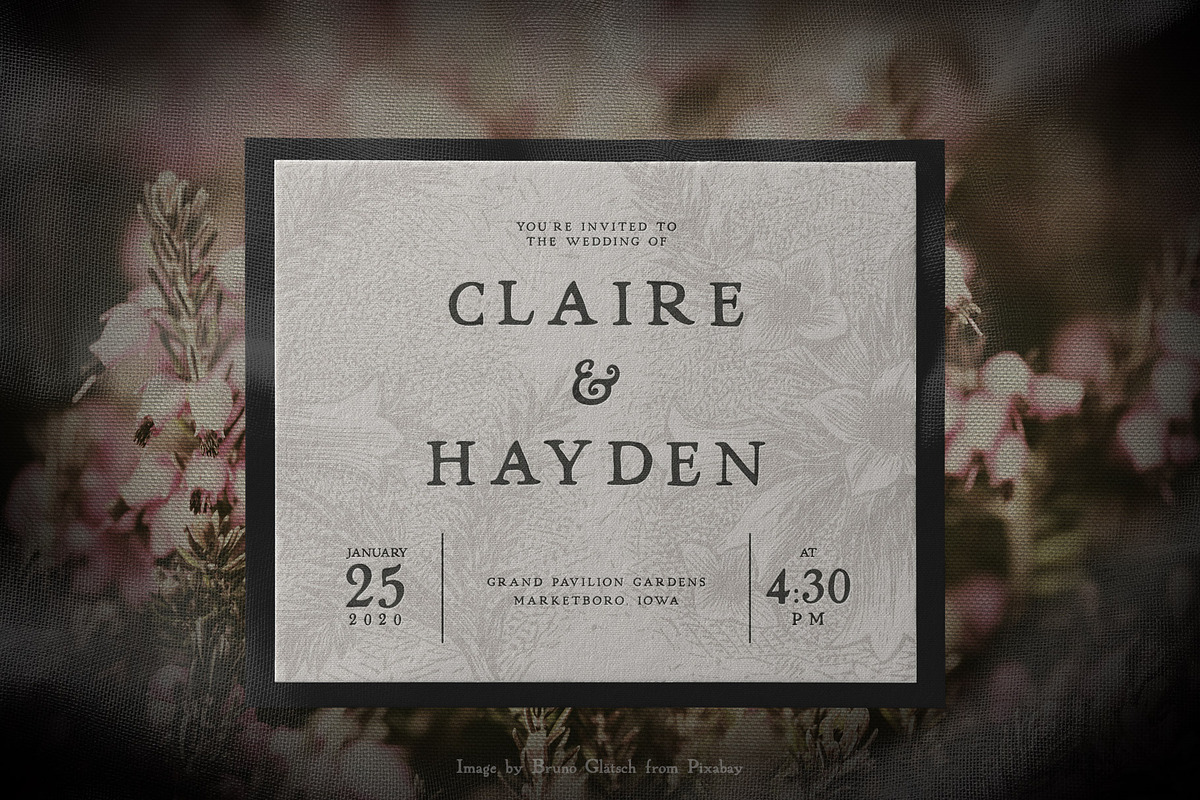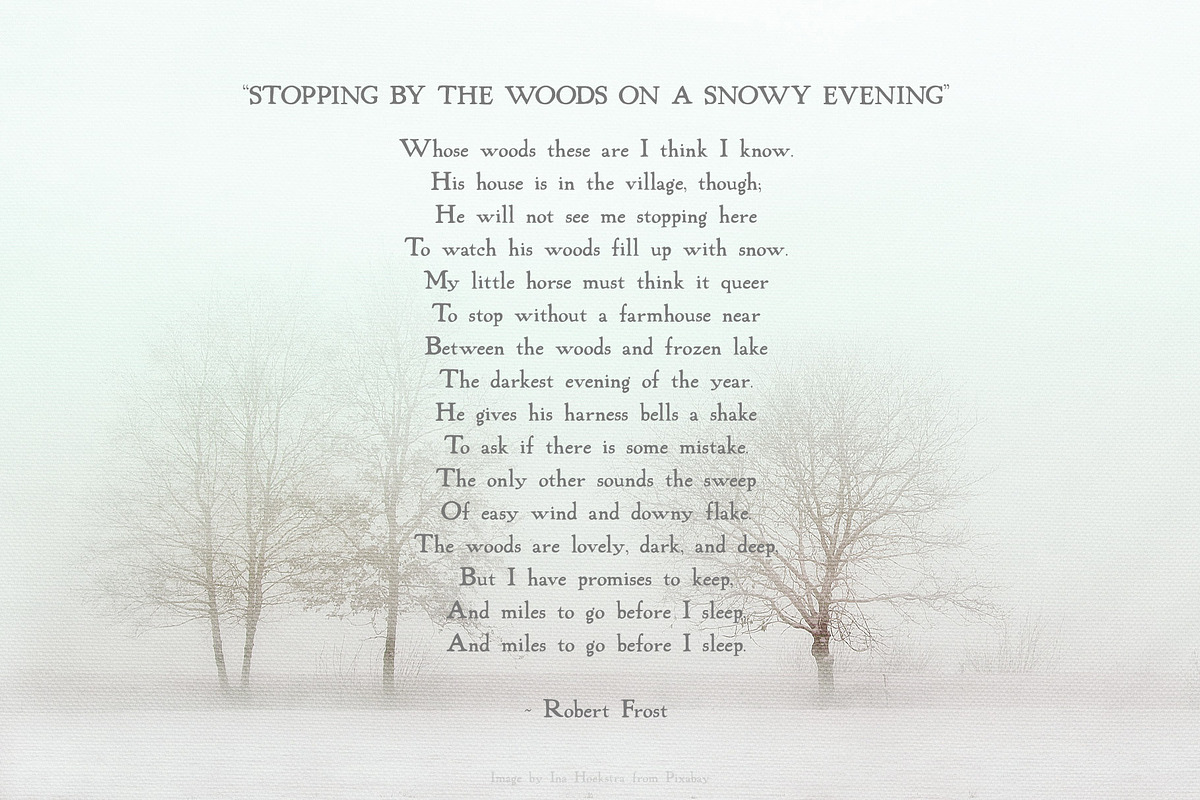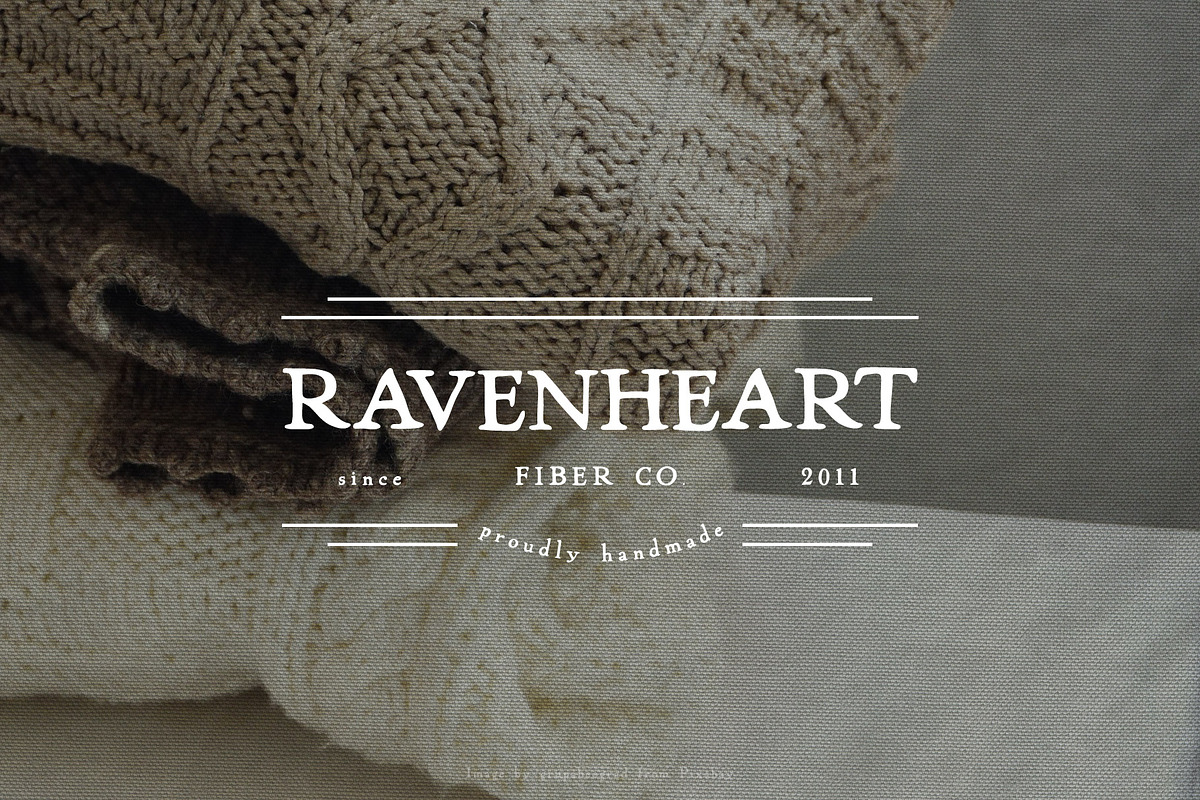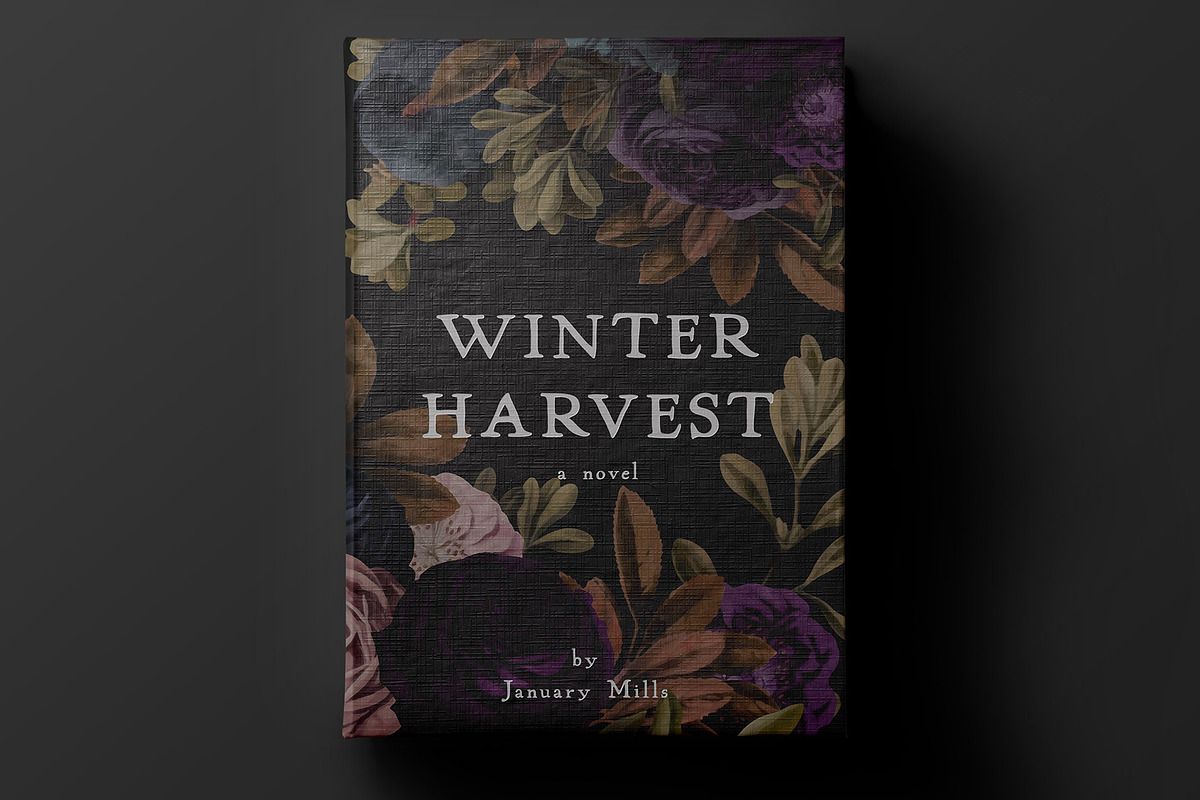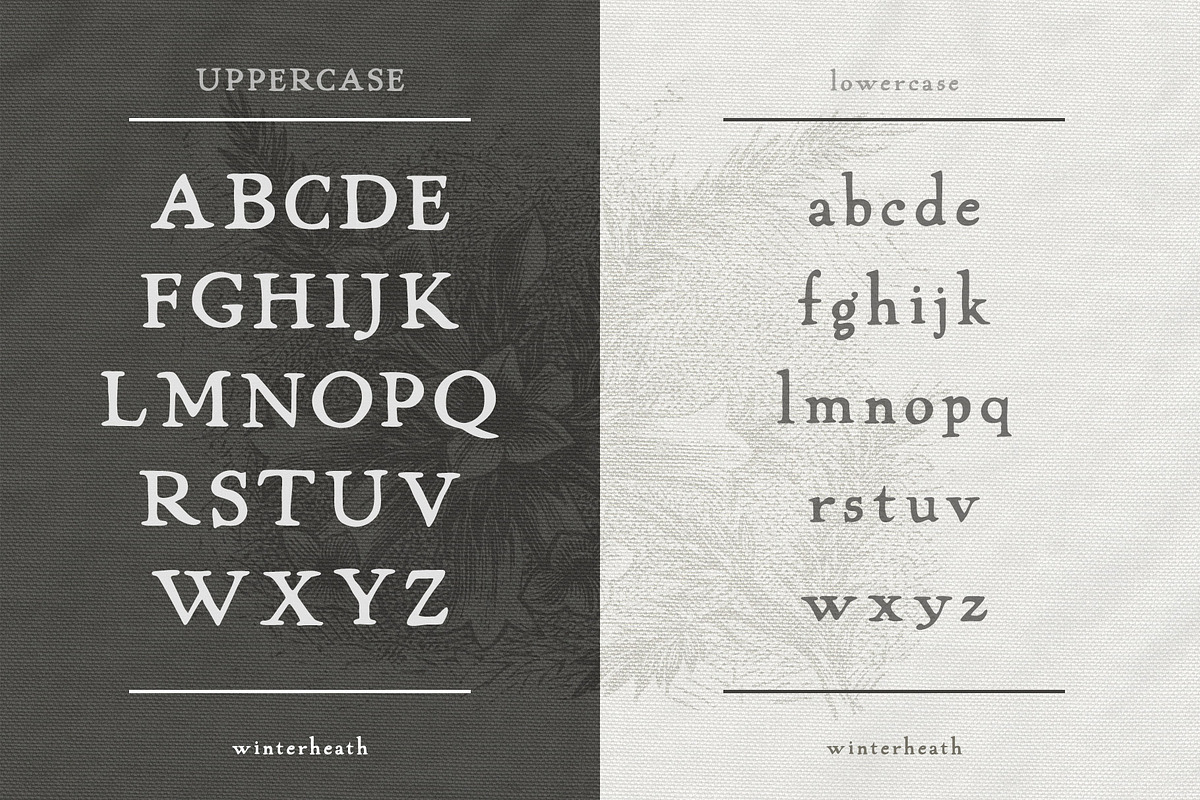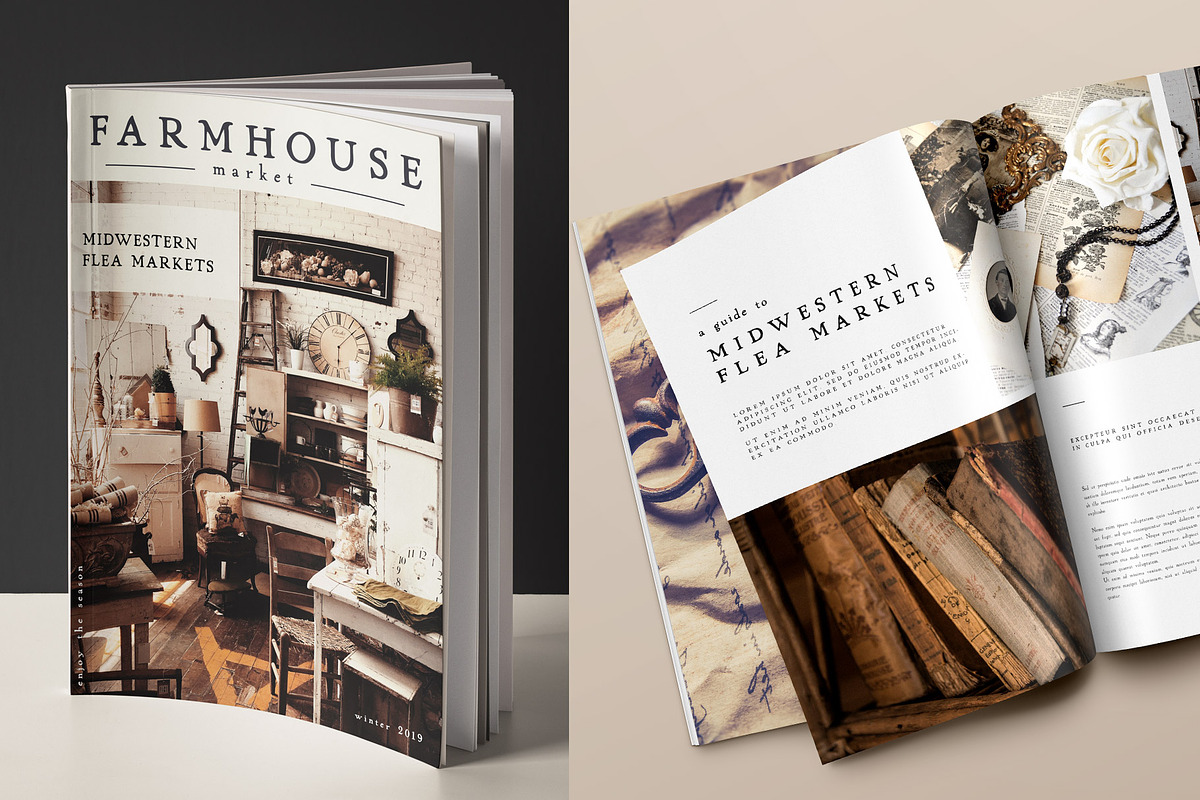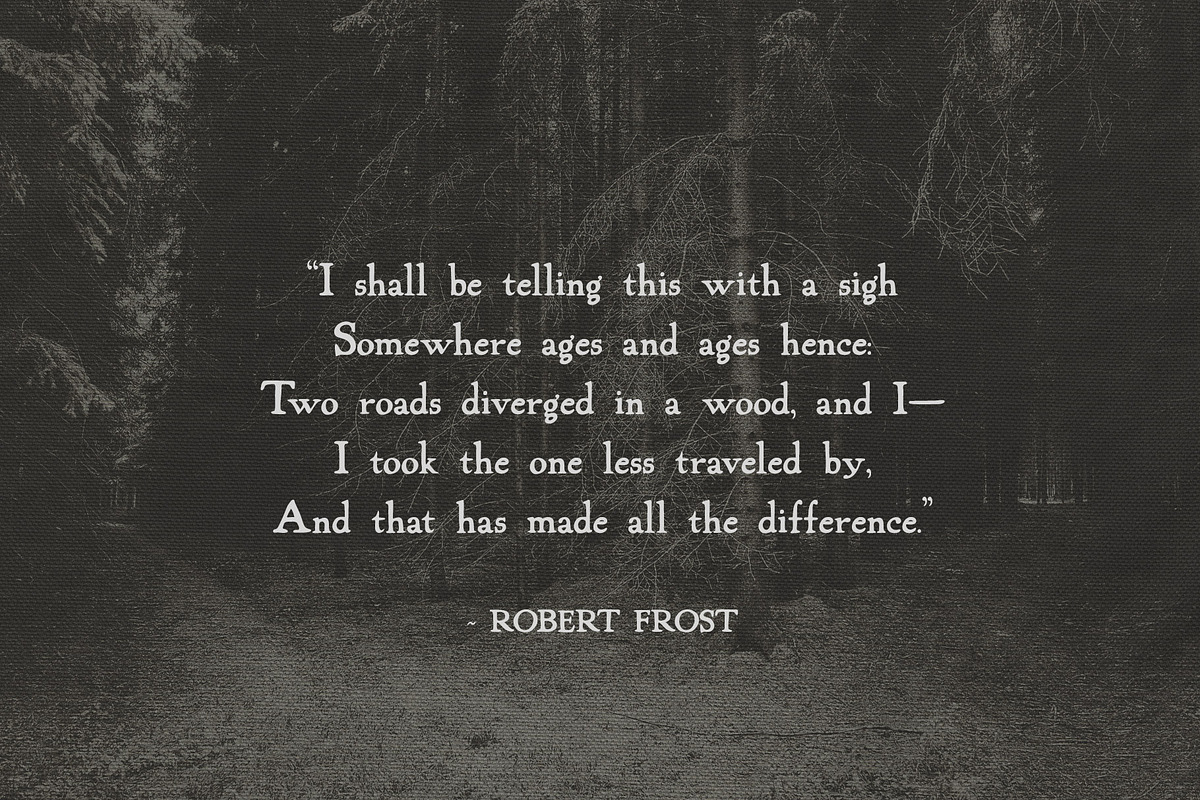
Winterheath Hand Drawn Serif Font
Winterheath is a vintage-inspired hand drawn serif font that is classic and elegant, yet rustic and natural. Perfect for logos, signs, invitations, magazines and more.